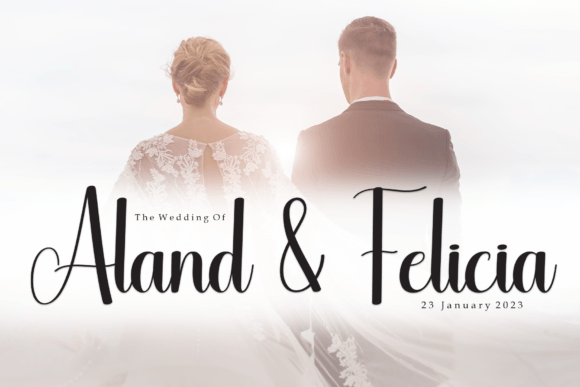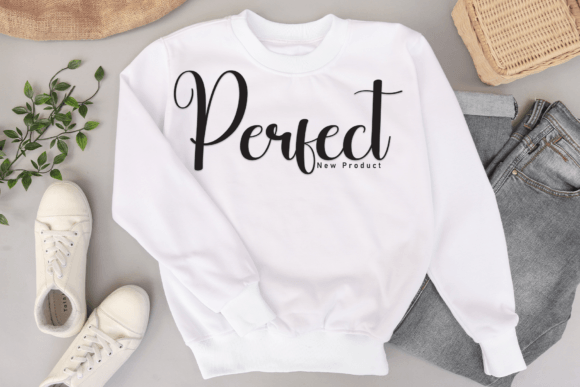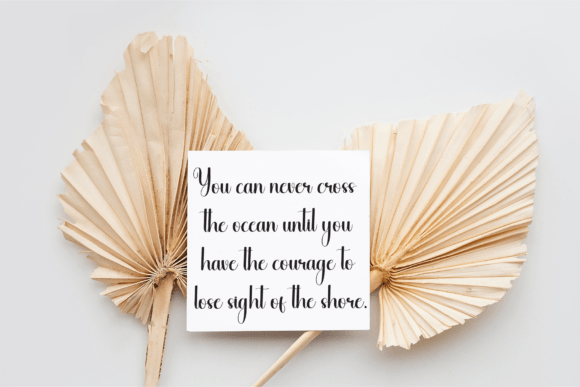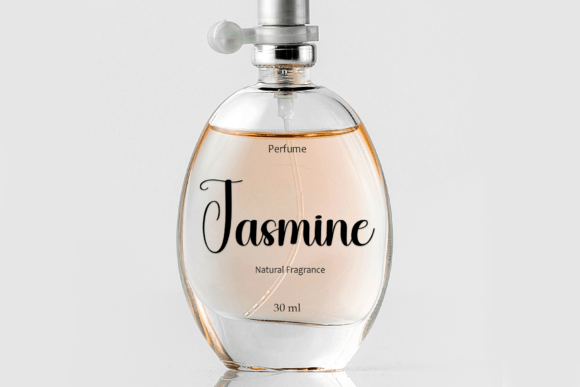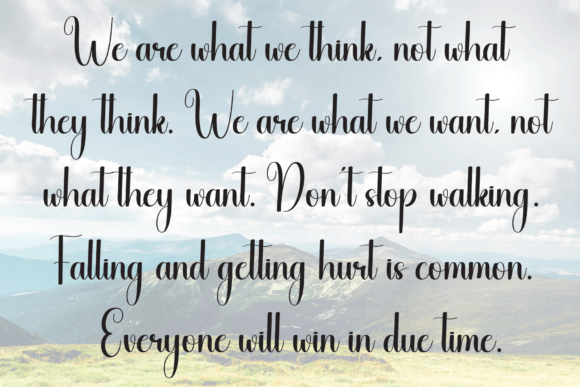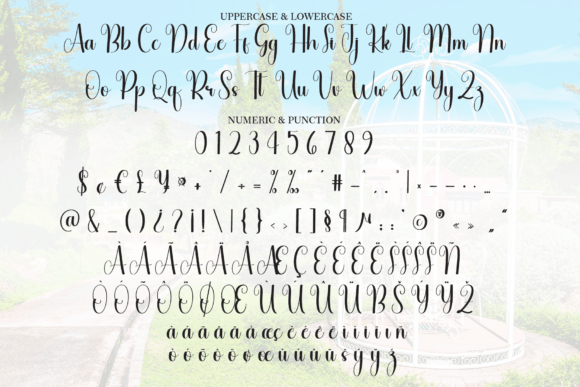
Athens Garden Font: Add a Lovely Touch to Your Designs
Are you looking for a font that can add a sweet and friendly touch to your designs? Look no further than the Athens Garden Font! This beautiful handwritten font is perfect for creating wedding invitations, cards, and other designs that require a personal and charming feel.
What is Athens Garden Font?
Athens Garden is a sweet and friendly handwritten font, designed to bring a touch of warmth and personality to your designs. Its cute and fun style makes it ideal for a variety of creative projects, from wedding invitations and cards to branding and packaging.
Key Features of Athens Garden Font
- Handwritten style: Athens Garden Font has a beautiful, handwritten style that gives it a personal and unique feel.
- Sweet and friendly: The font’s sweet and friendly appearance makes it perfect for designs that require a touch of warmth and personality.
- Cute and fun: The font’s cute and fun style makes it ideal for designs that require a playful and creative feel.
- Versatile: Athens Garden Font can be used for a variety of design projects, from wedding invitations and cards to branding and packaging.
Uses of Athens Garden Font
Athens Garden Font is a versatile font that can be used for a variety of design projects, including:
- Wedding Invitations: The font’s sweet and friendly style makes it perfect for creating beautiful and personalized wedding invitations.
- Cards: Athens Garden Font is ideal for creating greeting cards, birthday cards, and other types of cards that require a personal touch.
- Branding and Packaging: The font’s cute and fun style makes it perfect for branding and packaging designs that require a playful and creative feel.
- Social Media Graphics: Athens Garden Font can be used to create social media graphics, such as Facebook posts, Instagram posts, and Twitter headers.
Benefits of Using Athens Garden Font
Using Athens Garden Font can bring several benefits to your designs, including:
- Unique and Personalized: The font’s handwritten style gives it a unique and personalized feel that can help your designs stand out.
- Emotional Connection: The font’s sweet and friendly style can help create an emotional connection with your audience.
- Versatility: Athens Garden Font can be used for a variety of design projects, making it a great addition to your font library.
Tips for Using Athens Garden Font
Here are some tips for using Athens Garden Font effectively in your designs:
- Use it for headings and titles: The font’s cute and fun style makes it perfect for headings and titles.
- Pair it with other fonts: Athens Garden Font can be paired with other fonts to create a unique and interesting contrast.
- Experiment with colors: The font’s sweet and friendly style can be enhanced with bright and playful colors.
Athens Garden Font is a beautiful and versatile font that can add a lovely touch to your designs. Its sweet and friendly style makes it perfect for wedding invitations, cards, and other designs that require a personal and charming feel. With its unique and personalized style, Athens Garden Font is a great addition to any designer’s font library.